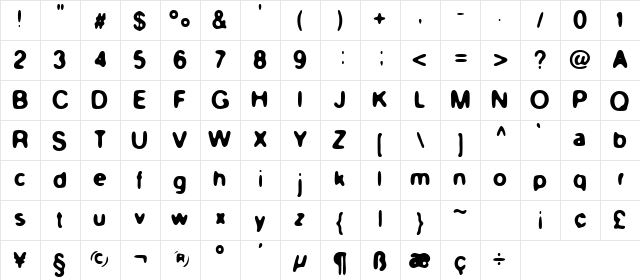
Atomic Suck Bold Regular
Design Context for Atomic Suck Bold Typeface
Atomic Suck Bold is a composed and adaptable typeface that performs quietly and consistently across a wide range of design contexts. Its bold stroke weight gives it real presence on the page.